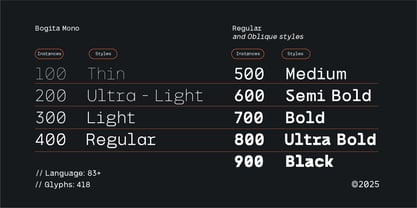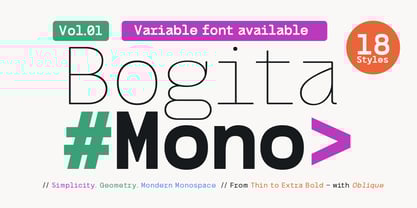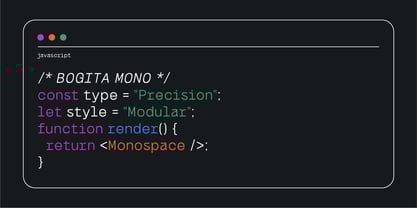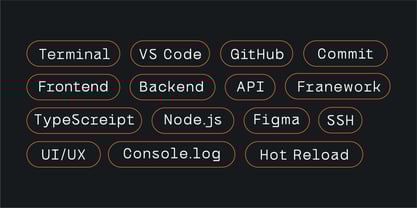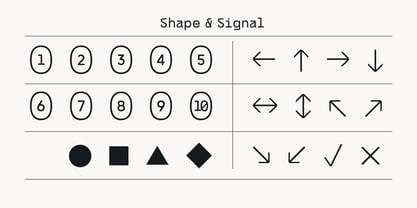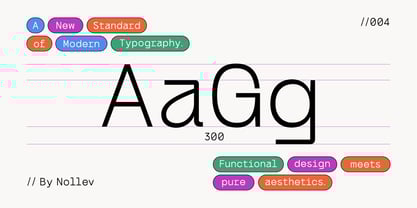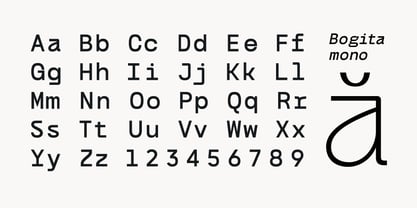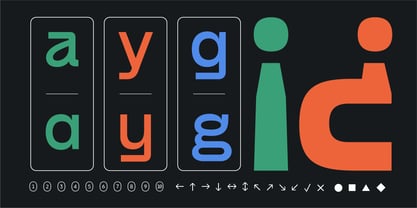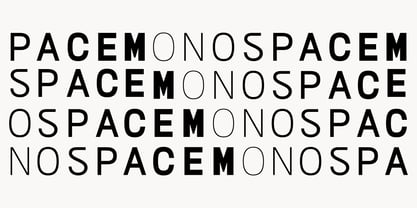
Bogita Mono
by Nollev
The Bogita Mono Font Family was designed by Akhmad Hidayat and published by Nollev. Bogita Mono contains 19 styles and family package options.
Bogita Mono is a modern monospaced typeface built with precision, structure, and clarity. Featuring 8 carefully balanced weights from Thin to ExtraBold, each with matching Oblique styles, Bogita Mono is designed for both functionality and visual consistency.
Its clean rhythm and equal-width characters make it ideal for interface design, code-based layouts, modern branding, and editorial projects that demand order and simplicity. With over 419 glyphs and support for 83+ languages, it’s ready for a wide range of creative and technical uses.
Features:
• 16 Styles – 8 Upright + 8 Oblique
• Monospaced Design – Equal-width characters for clean, structured layouts
• 400+ Glyphs – Including punctuation, symbols, and stylistic details
• Multilingual Support – Covers Western, Central, and Eastern European languages
• Optimized for print and digital environments
Bogita Mono – Precision in every line.